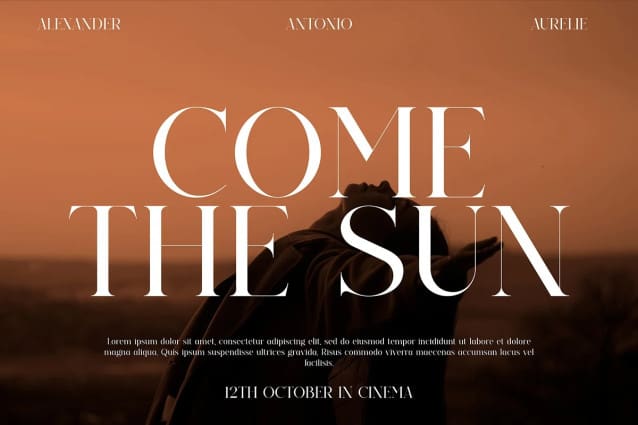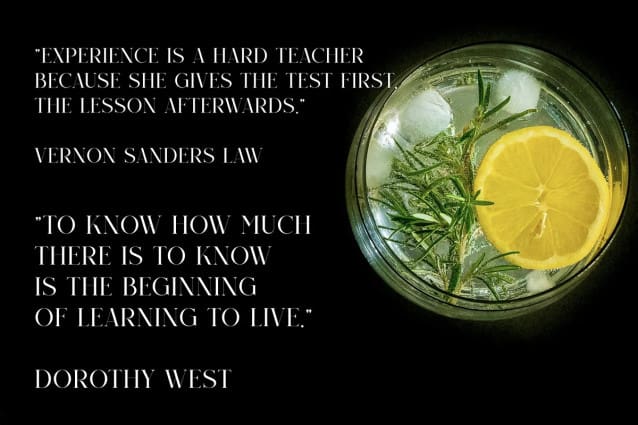
Emmeline Font
Emmeline Font, a simple and serif font. So perfect for you who needs a typeface for logo designs, magazine, social media, brochure, and many more.